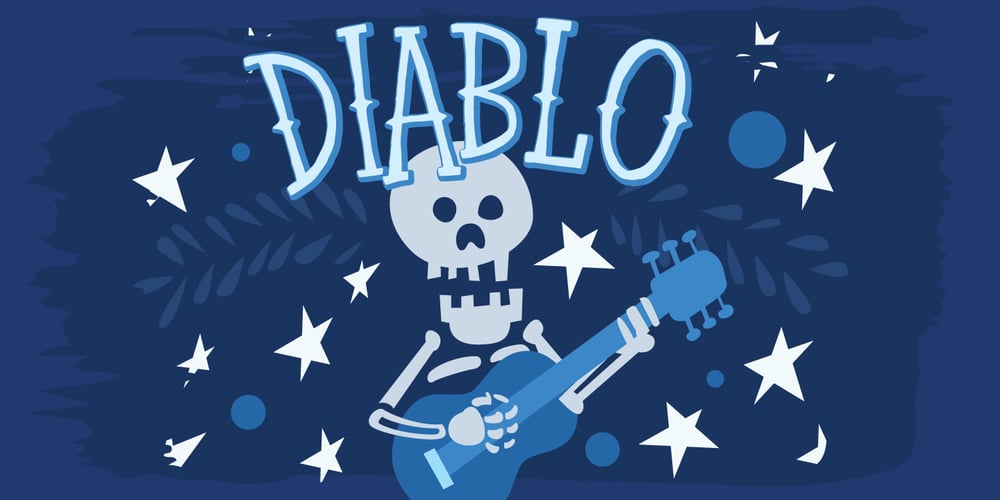
Diablo Font Family was designed by David Cohen, Dathan Boardman and published by Rocket Type. Diablo contains 1 styles and family package options. Es fantástico, ¡Diablo! A handmade spurred serif font with a bouncy baseline. Packed with tons of dynamic southwest flavored characters. Perfect for any creation that requires mucha vida vibrante. Enjoy Diablo!